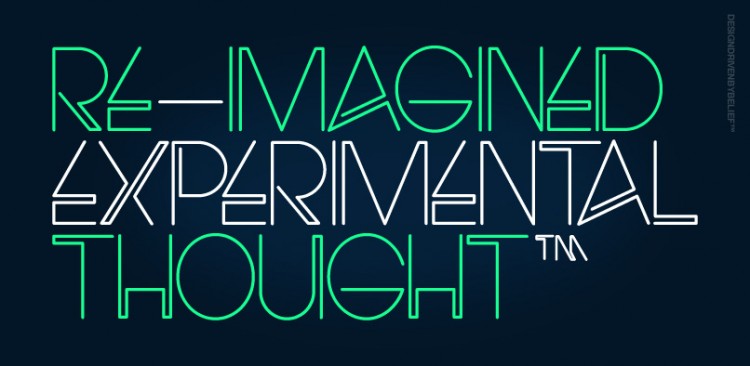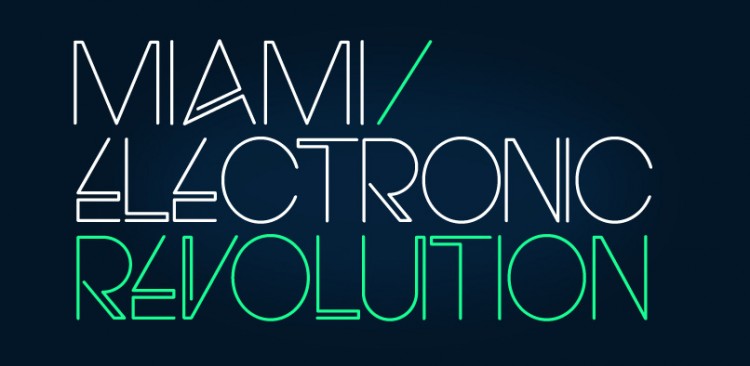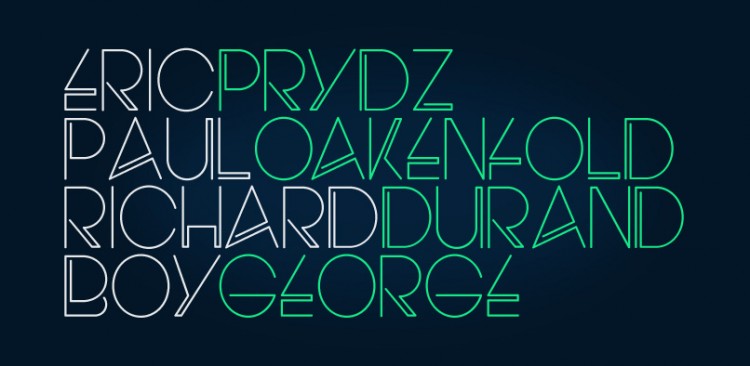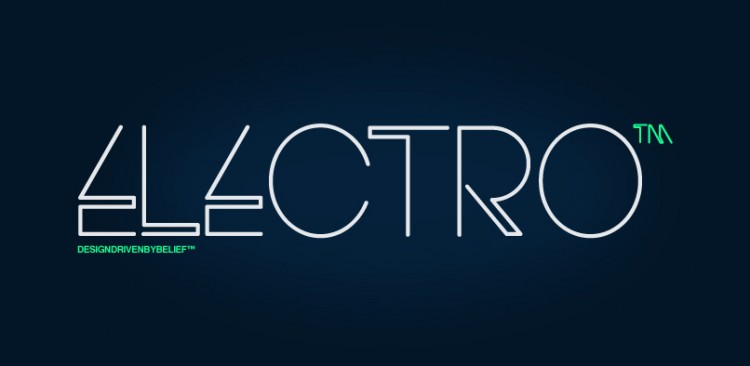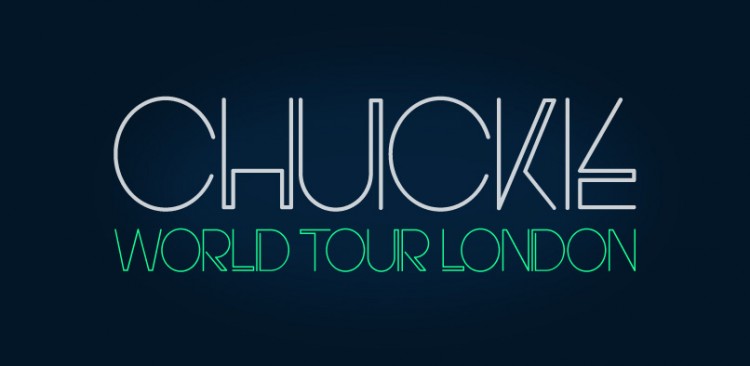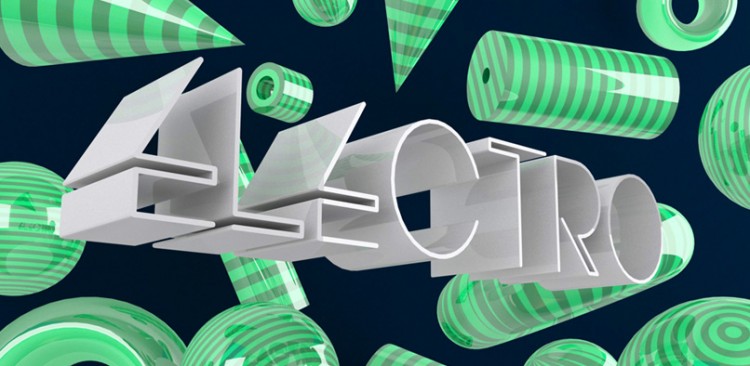
Electro is a brand new experimental typeface for 2013. It’s got so much impact that if it was actually real, it would probably hit you smack bang in the face. This geometric wild child is one not to be messed with, sharp edges and futuristic styling give Electro the attitude needed to leave a lasting impression. Electro also comes with an extended character set with support for a whole range of languages. It can tell you to do one in French, Spanish, and Italian. Infact, it’s fluent in rather a lot of languages! Electro succeeds where other domestic housewife types don’t, and that’s in the looks department. It’s got so much street cred, it’ll have the youngens clucking for the next font fix!